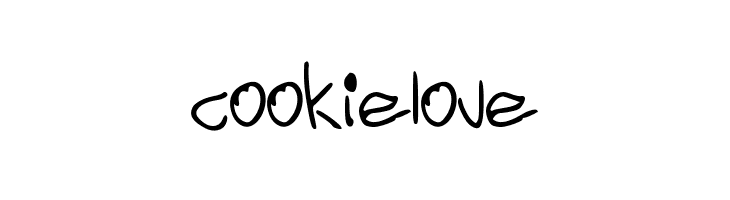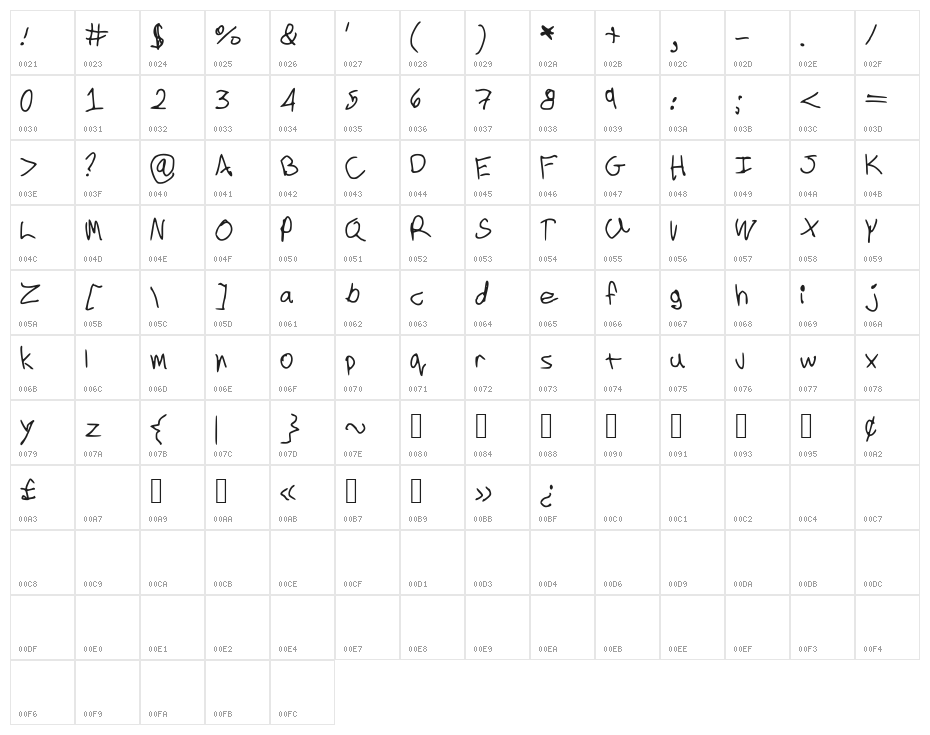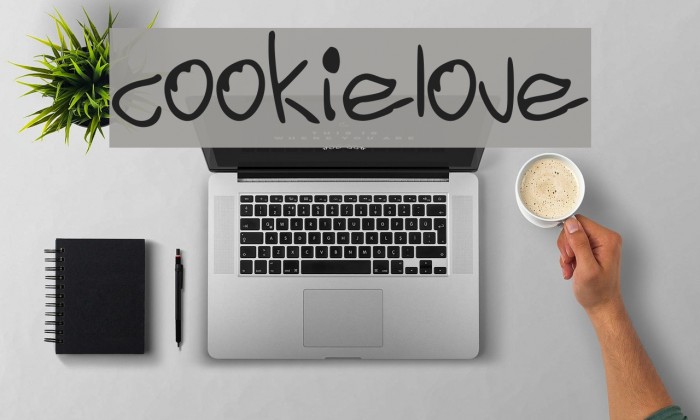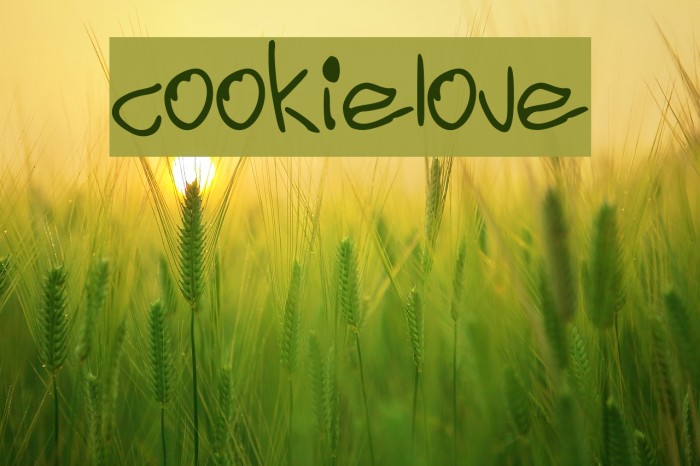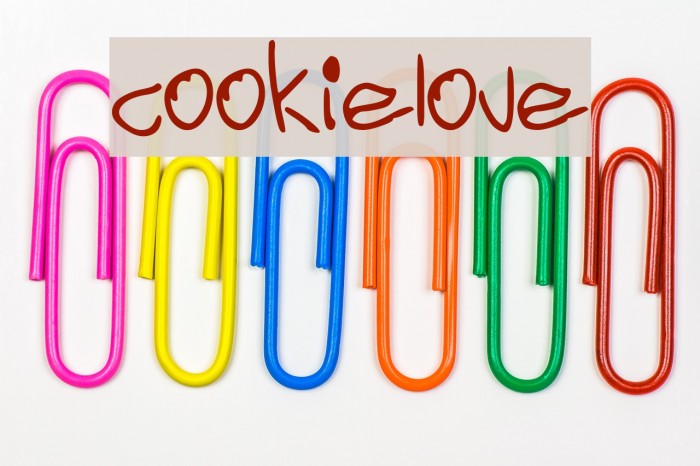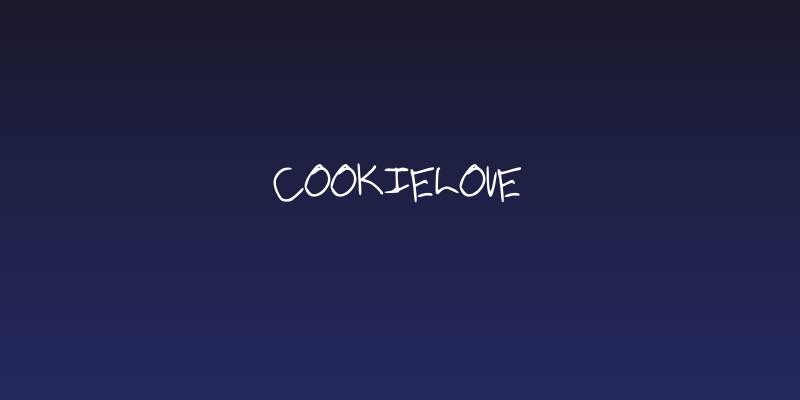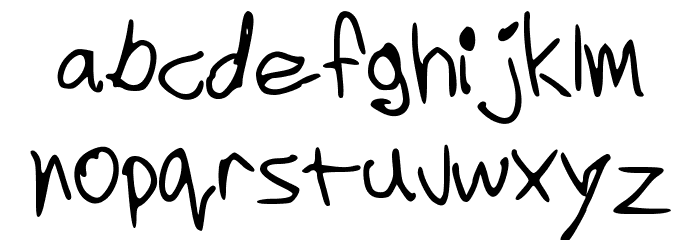
cookielove Font
cookielove Description
This playful and casual handwritten font exudes a sense of spontaneity and creativity. The letters are unevenly sized and slightly tilted, giving them a dynamic and lively appearance. The strokes are bold and confident, with a slight variation in thickness that adds to the font's charm. The overall look is informal and friendly, making it perfect for projects that require a personal touch. The characters are well-spaced, ensuring readability while maintaining the font's whimsical nature. This font is ideal for designs that aim to convey warmth and approachability.